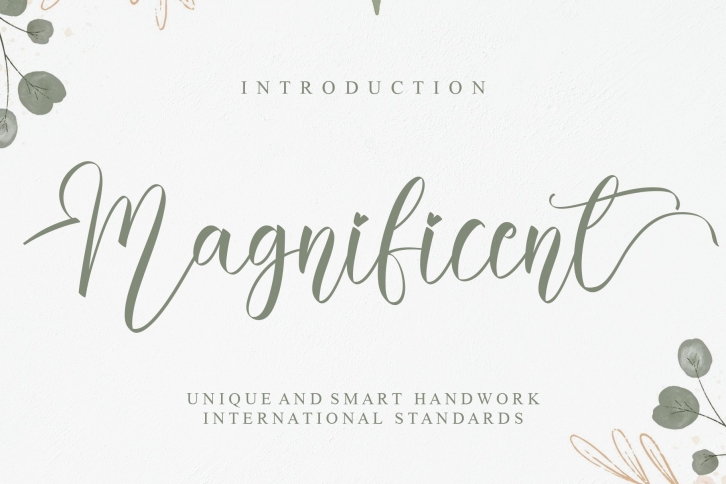
Magnificent is a gorgeous font that was realeased on September 9, 2021. The font can be used in many style contexts and design environments. Perfect for invitations, magazines, websites, logos, and more! It was designed by Scratchones and the file size is 14.75 MB. Thanks for checking out this font!